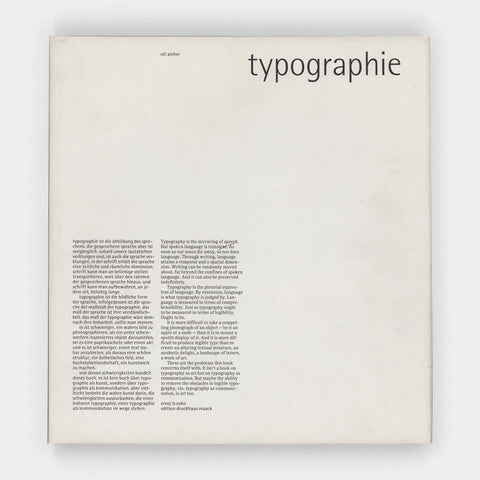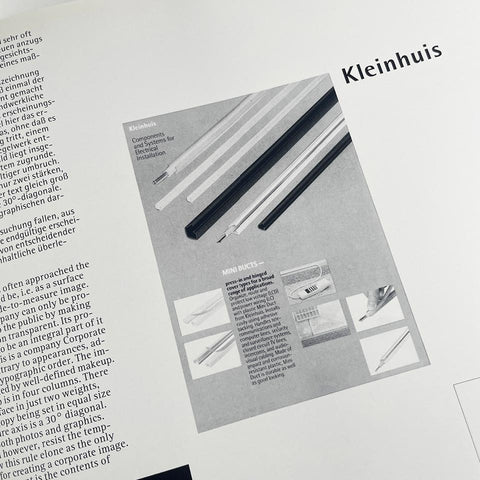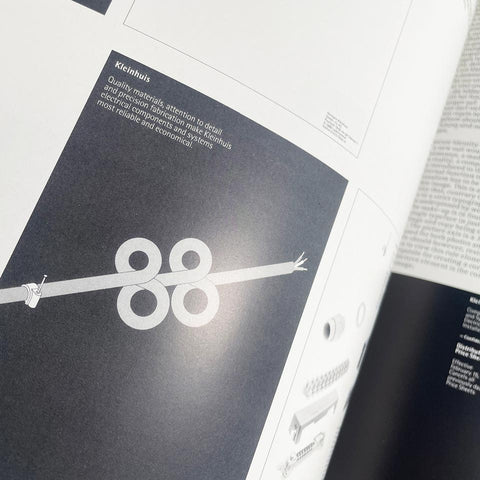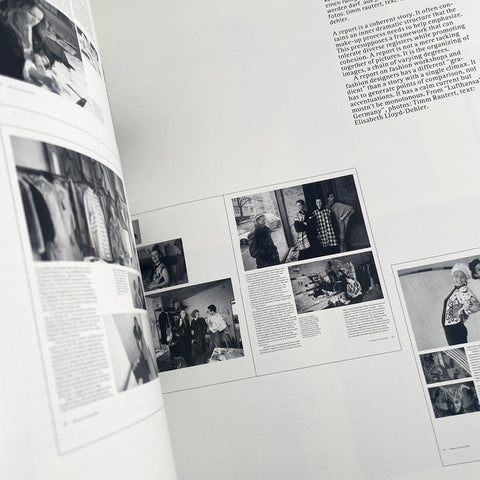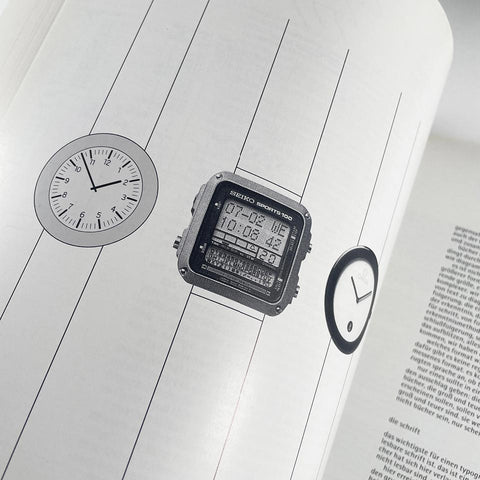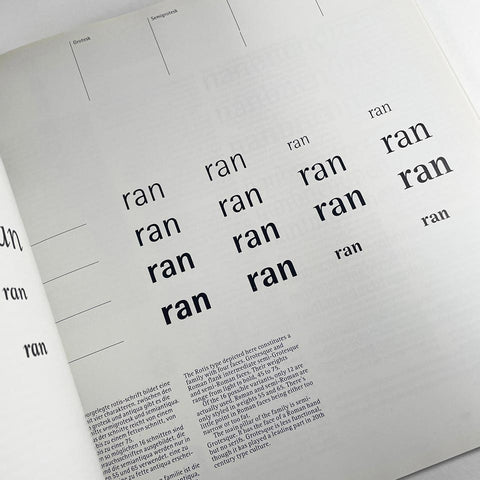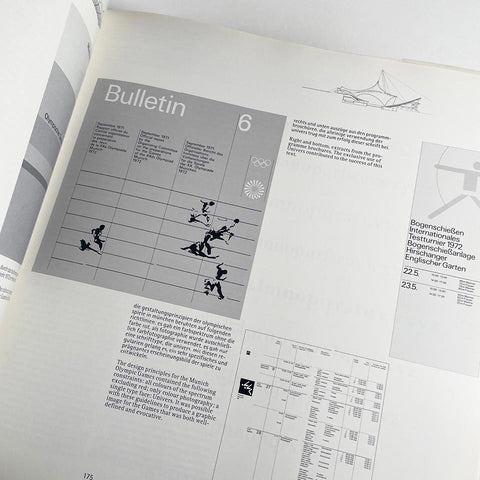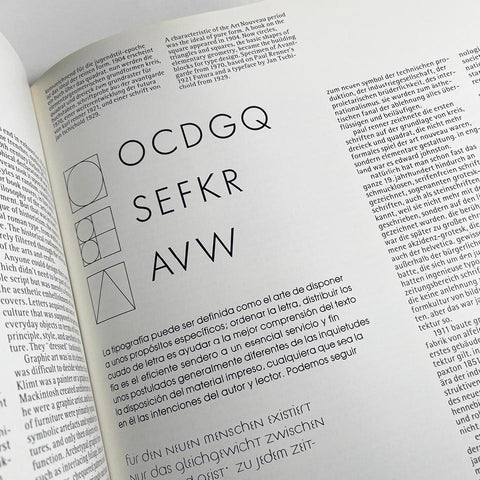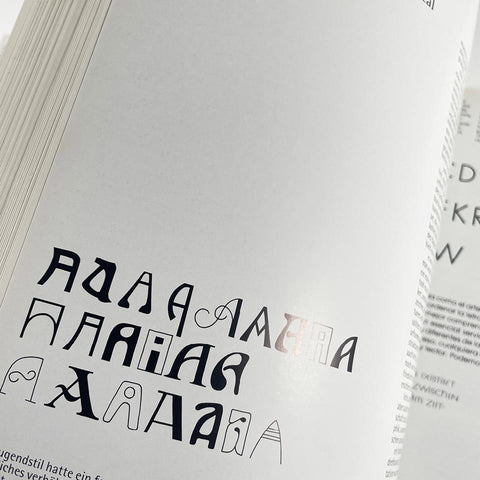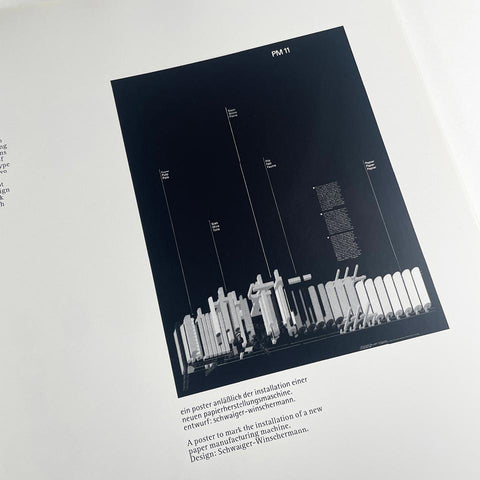
Typographie (Otl Aicher)
This one by Otl Aicher is as informative as it is handsome. (Or would it be better to say that it is as handsome as it is informative?) Loaded with detailed and illuminating illustrations that highlight the principles that make type readable and dynamic—regardless of the means of production. Prepared during the transition to digital design and typesetting, this is still a useful tool even if almost forty years old. (This reporter is fifty and still a useful tool.)
- Authors: Otl Aicher with Einem Beitrag and Joseph Rommen
- Languages: German and English
- Publisher: Ernst & Sohn and Edition Druckhaus Maack, 1988